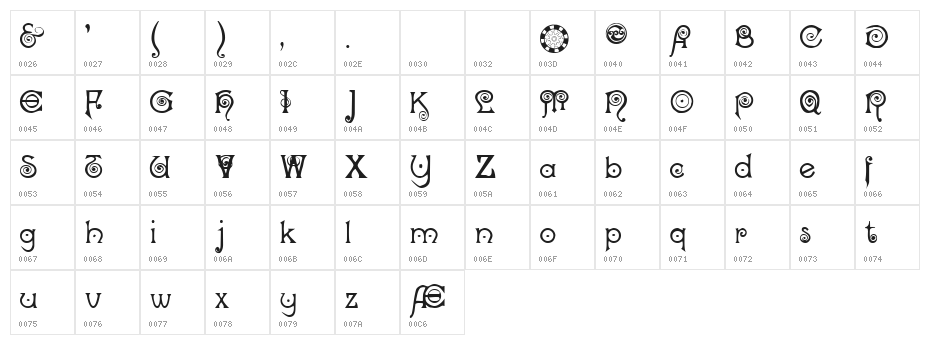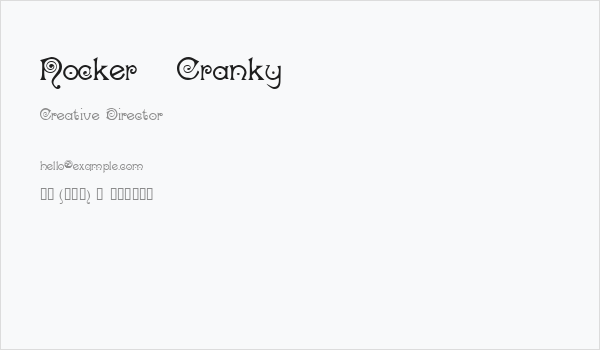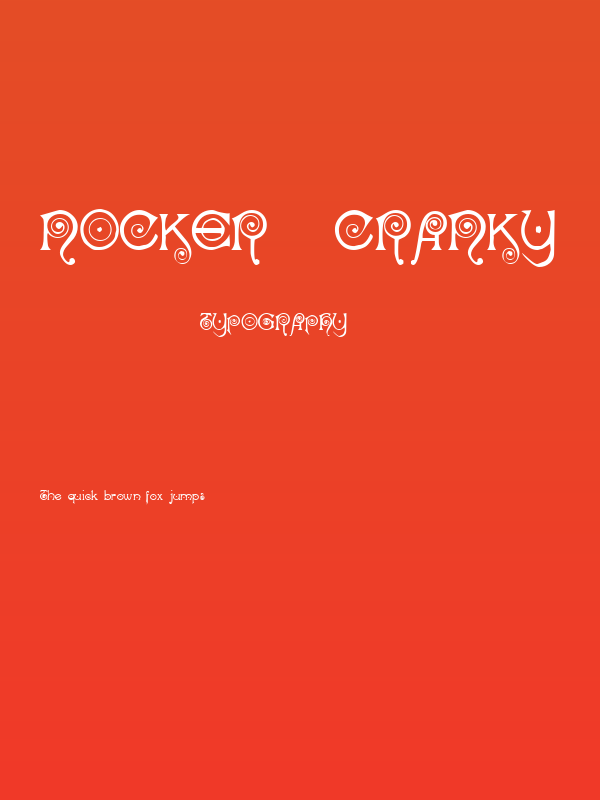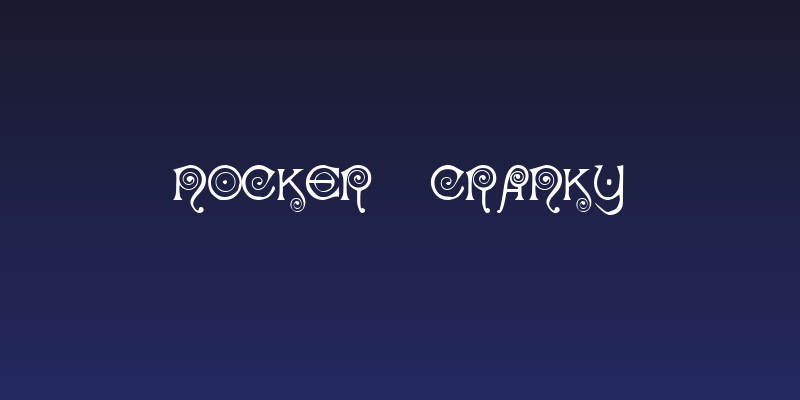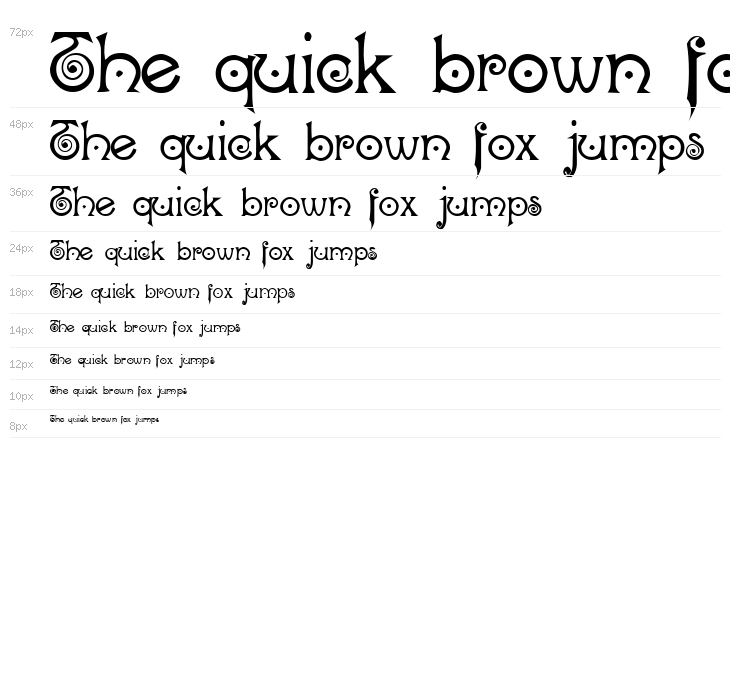
Nocker Cranky Font
Nocker Cranky Description
This font features an eclectic and whimsical design, characterized by its unique and playful letterforms. Each character is adorned with intricate details, such as spirals and pointed serifs, giving it a fantastical and artistic appearance. The uppercase letters are particularly elaborate, with swirling elements that add a sense of movement and creativity. The lowercase letters maintain a consistent style, offering a harmonious blend with the uppercase set. The numerals and special characters follow the same decorative theme, ensuring a cohesive look across all glyphs. This font's distinctive style makes it ideal for projects that require a touch of fantasy and imagination.
| Proposed Projects | Ideal for fantasy-themed designs, book covers, posters, and creative branding projects. |